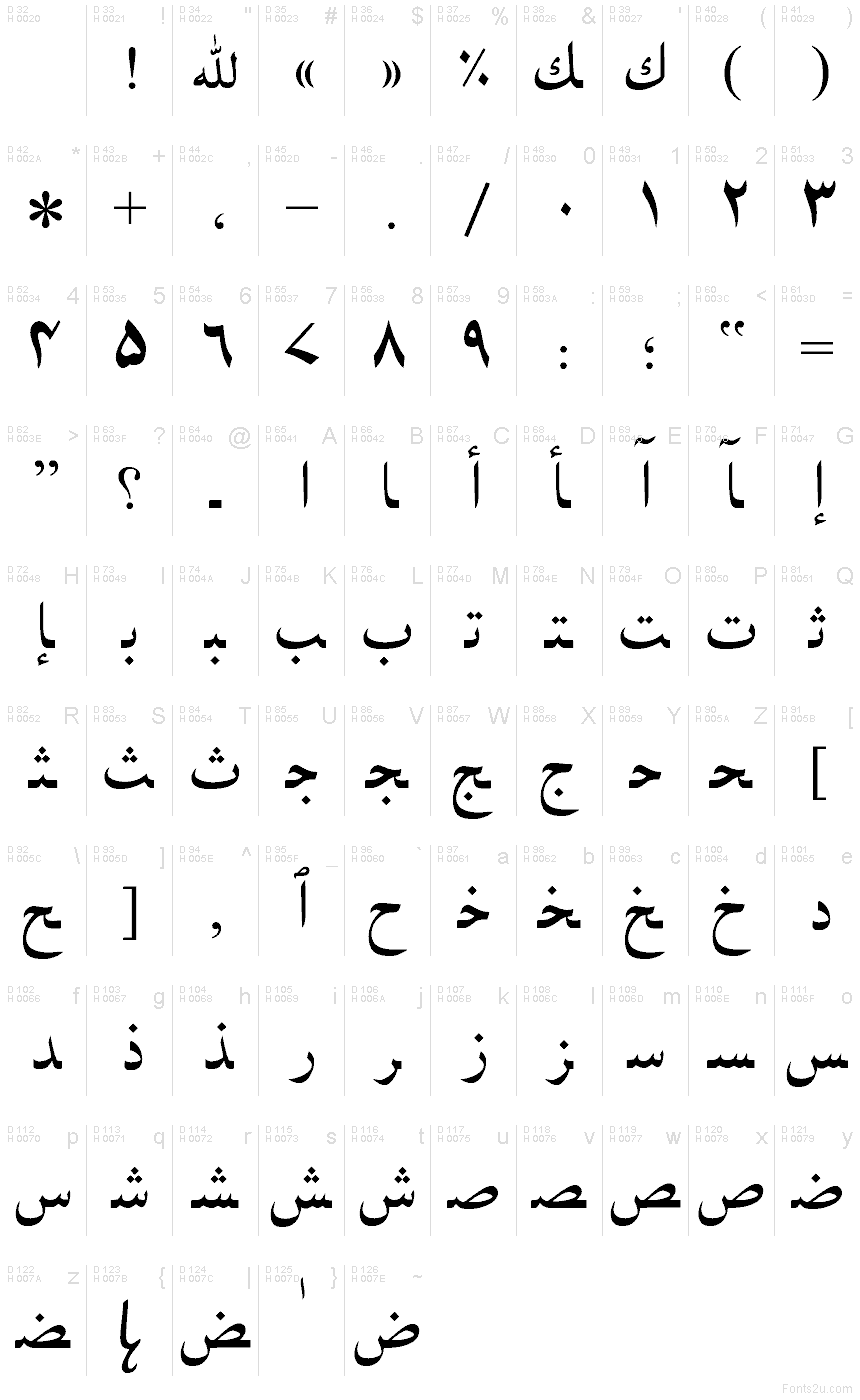
UrduNaskhSSK
UrduNaskhSSK font is a free Arabic font with elegant letters which flow in the most creative of arrangements and connections. Expressive and gently sophisticated, this typeface brilliantly meets expectations when authenticity is demanded for traditional designs yearning to embrace their cultural richness.
Cultural-related purposes are first on the target. Websites, magazines, newspapers, posters and architectural projects all benifit similarly. And as other applications include logos making as well as business cards designing with UrduNaskhSSK, there will not be a lack of opportunities to get creative even with copywriting materials for brands profiling purposes.